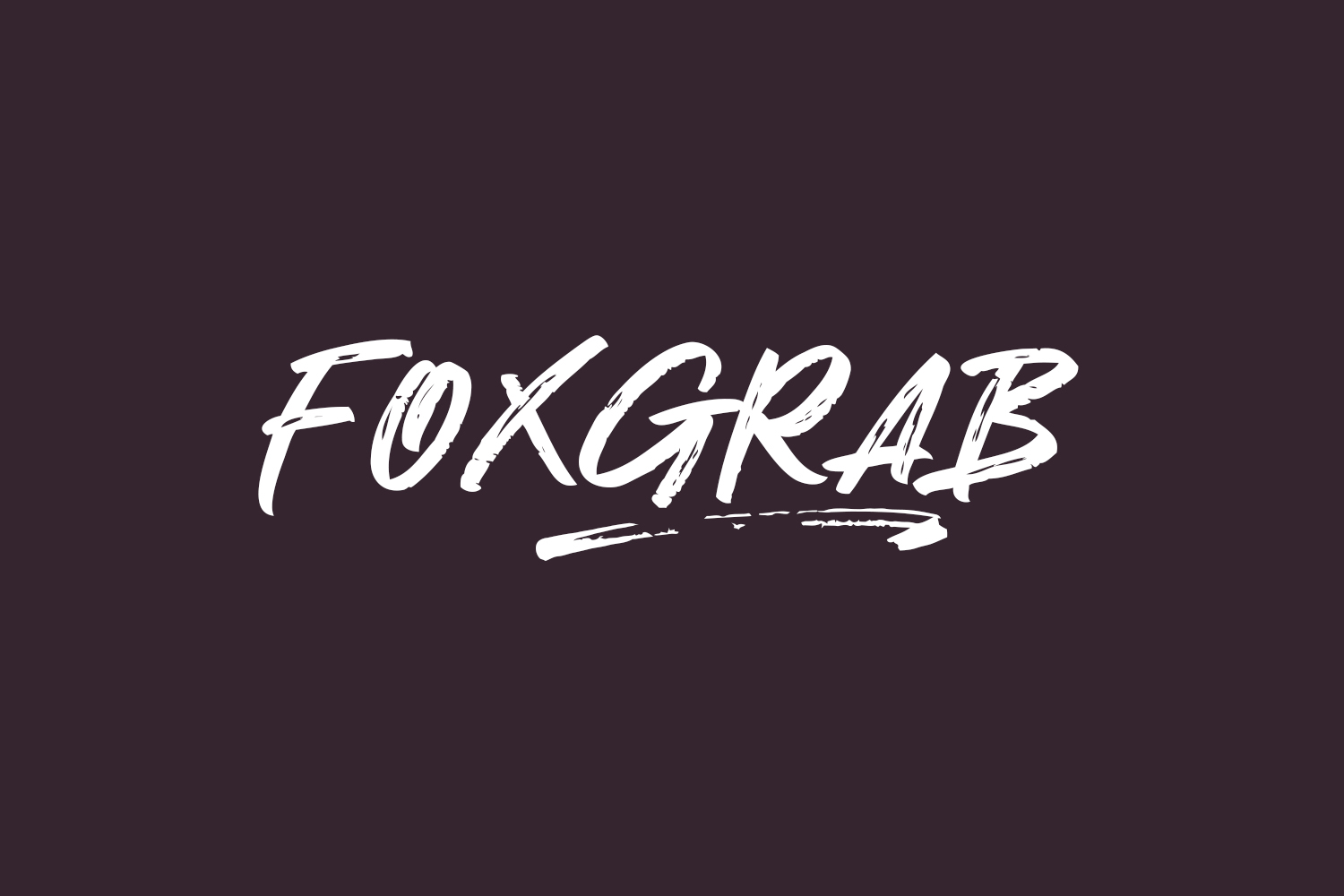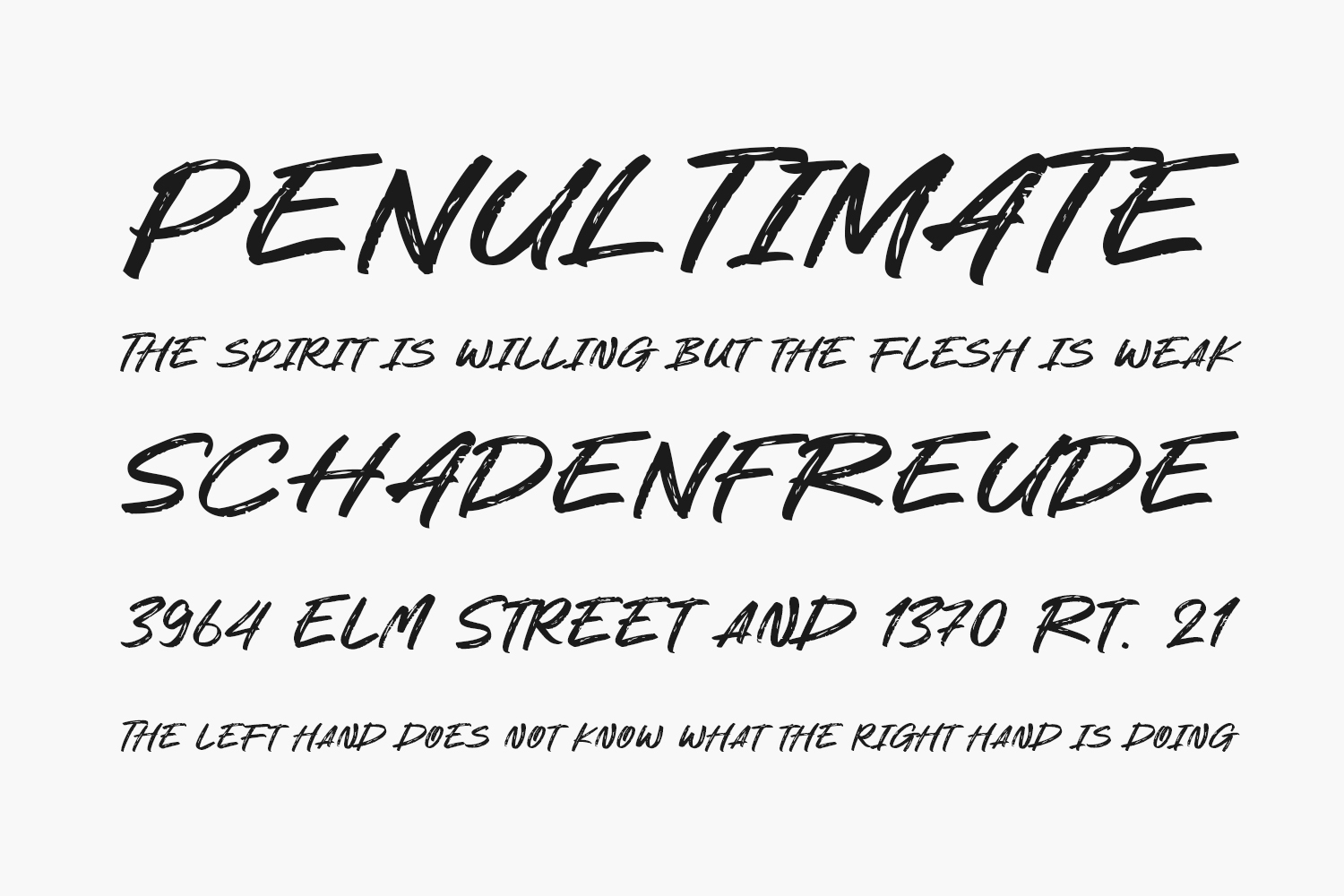
Explore the contemporary allure of Foxgrab Free Font, a versatile brush font tailor-made for posters, logos, magazines, book covers, banners, and beyond! Acquire this distinctive handwritten font to infuse your designs with a touch of quirkiness. Its adaptability makes it a perfect match for a wide array of projects, enhancing your creative ideas and ensuring they stand out effortlessly! Elevate your designs with the modern charm of Foxgrab. Foxgrab Free Font was designed by Khurasan and is free for personal use only. Please purchase the full version for commercial use.